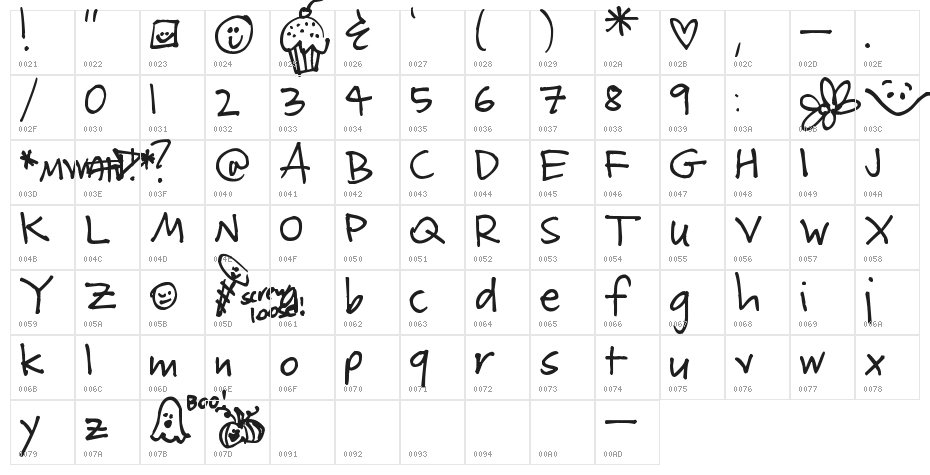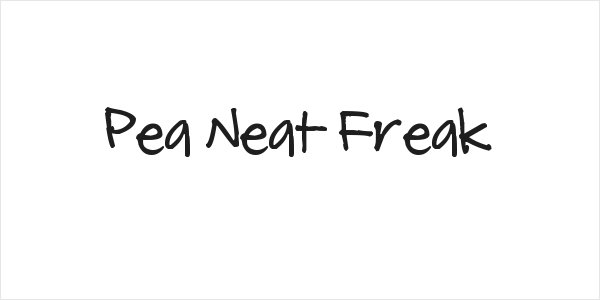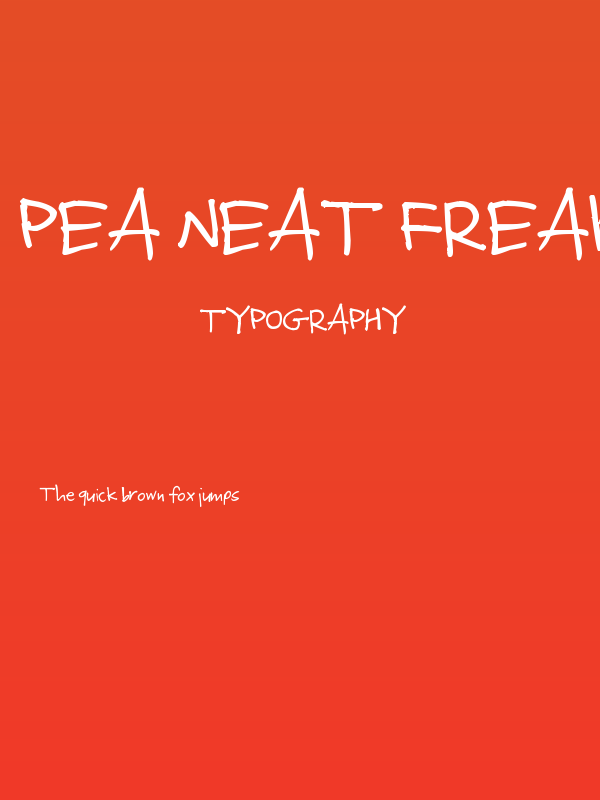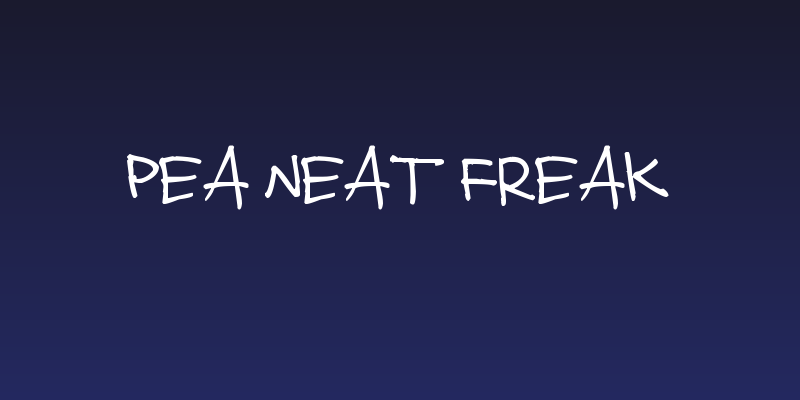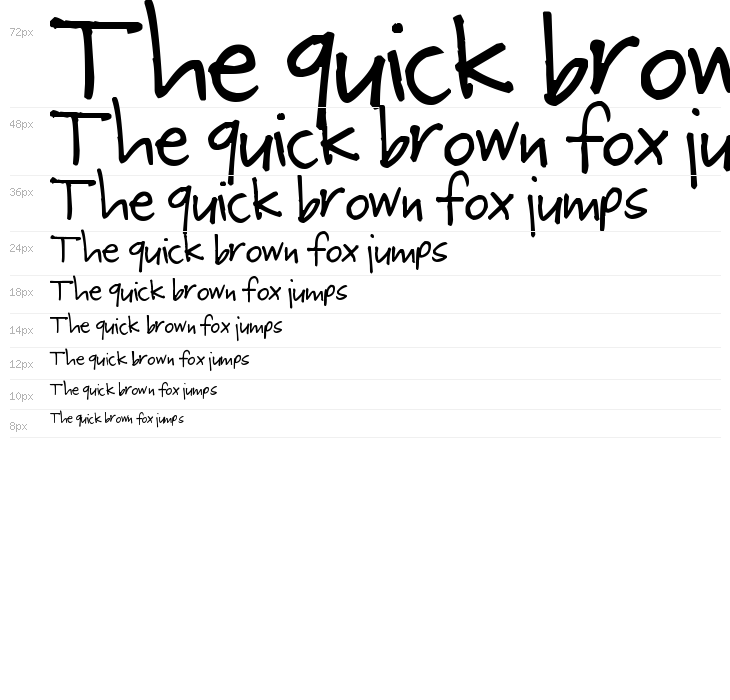
Pea Neat Freak Font
Pea Neat Freak Description
This playful and whimsical font features a handwritten style with a casual and friendly appearance. The letters are unevenly sized, adding a touch of spontaneity and charm. The strokes are bold and slightly irregular, giving it a lively and energetic feel. The font includes a full set of uppercase and lowercase letters, numbers, and a variety of special characters, including fun emoticons. Its informal style makes it perfect for projects that require a personal touch or a sense of fun and creativity.
| Proposed Projects | Ideal for greeting cards, children's books, playful branding, and casual invitations. |